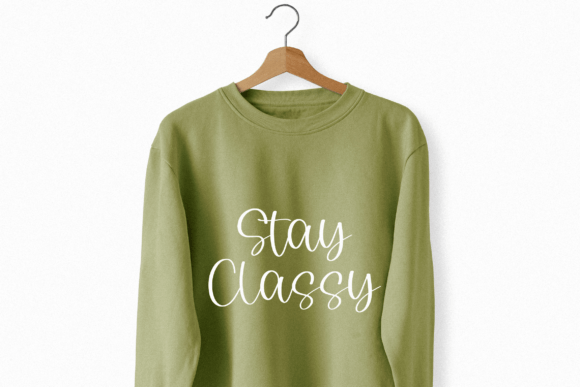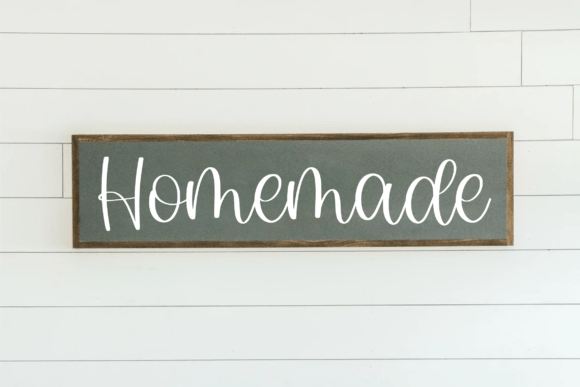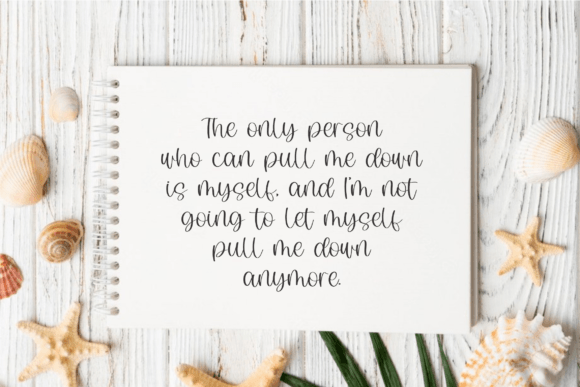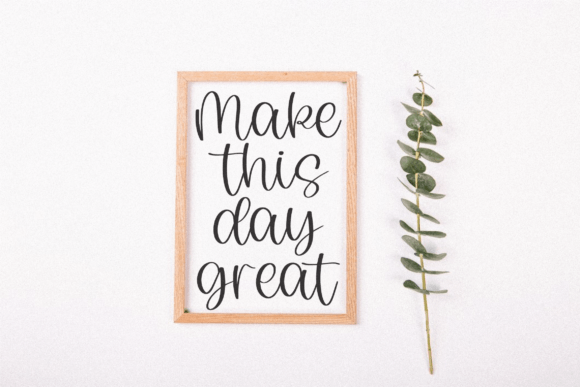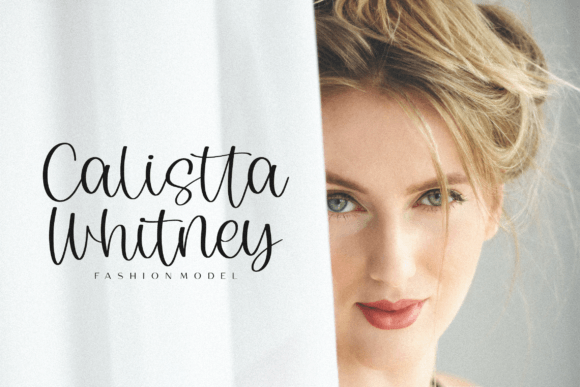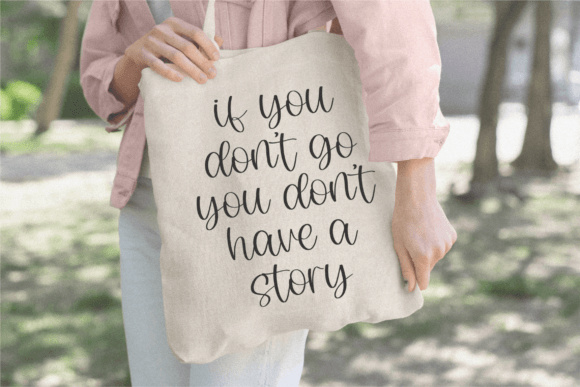
Introducing Goldimine Font: The Perfect Handwritten Style for Your Creative Projects
In the world of typography, a good font can make all the difference in the success of a design project. Whether you’re a professional designer, crafty DIY enthusiast, or social media influencer, the right font can elevate your work and make it stand out from the crowd. That’s where Goldimine Font comes in – a modern handwritten font that’s perfect for a wide range of creative applications.
What is Goldimine Font?
Goldimine Font is a beautifully crafted handwritten font that’s designed to add a touch of elegance and sophistication to your designs. With its smooth, flowing lines and delicate letterforms, this font is perfect for creating visually stunning text that pops against any background.
What Makes Goldimine Font So Versatile?
One of the things that sets Goldimine Font apart from other fonts is its incredible versatility. Whether you’re working on a product packaging design, branding project, magazine layout, social media post, or wedding invitation, this font is sure to impress. Its modern and fresh feel makes it perfect for a wide range of creative applications, from formal and professional to playful and whimsical.
Perfect for Product Packaging and Branding Projects
Goldimine Font is an excellent choice for product packaging and branding projects. Its elegant and sophisticated feel makes it perfect for creating eye-catching labels, logos, and marketing materials that will help your products stand out on store shelves. Whether you’re launching a new product line or refreshing an existing brand, this font is sure to make a lasting impression.
Great for Magazines and Social Media Posts
Goldimine Font is also perfect for magazine layouts and social media posts. Its clean and readable design makes it easy to use in a variety of digital and print applications, from blog posts and articles to Instagram captions and Facebook updates. Whether you’re a blogger, influencer, or publisher, this font is sure to add a touch of style and sophistication to your content.
Ideal for Weddings and Special Events
And, of course, Goldimine Font is also perfect for weddings and special events. Its elegant and romantic feel makes it ideal for creating beautiful wedding invitations, programs, and other stationery. Whether you’re a wedding planner, DIY bride, or event designer, this font is sure to add a touch of whimsy and charm to your designs.
Key Features of Goldimine Font
So, what are the key features of Goldimine Font that make it so special? Here are just a few highlights:
- Modern handwritten style: Goldimine Font features a beautiful, modern handwritten style that’s perfect for creating elegant and sophisticated text.
- Clean and readable design: This font has a clean and readable design that makes it easy to use in a variety of digital and print applications.
- Delicate letterforms: Goldimine Font features delicate letterforms that add a touch of whimsy and charm to your designs.
- Perfect for a wide range of creative applications: Whether you’re working on a product packaging design, branding project, magazine layout, social media post, or wedding invitation, this font is sure to impress.
In conclusion, Goldimine Font is a versatile and beautiful handwritten font that’s perfect for a wide range of creative applications. Its modern and fresh feel, combined with its elegant and sophisticated style, make it an excellent choice for designers, crafters, and DIY enthusiasts alike. Whether you’re working on a product packaging design, branding project, magazine layout, social media post, or wedding invitation, Goldimine Font is sure to add a touch of style and sophistication to your work.